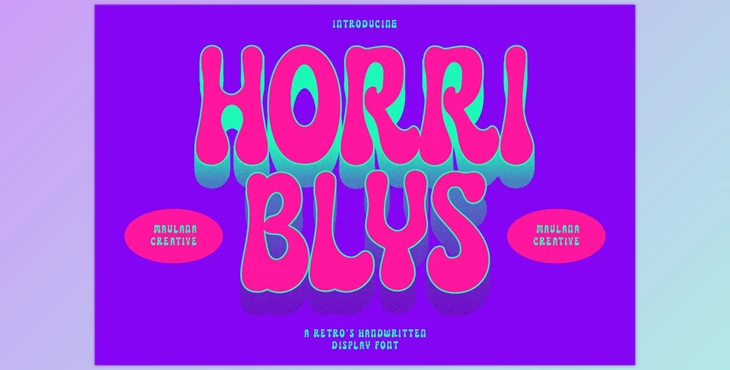
Horriblys Decorative Display Font:
Horriblys is a beautiful handwritten display font. With a bold, wavy stroke. the enjoyable character that has a hint of alternates and ligatures. For you to do a bit of artistic work. The font supports multilingual support for more than 100languages. The font is suitable for logos, social media as well as movie Titles, and Books Titles, as well as a brief text even lengthy texts and, is an excellent secondary text font with a serif or sans. Create stunning designs using Horriblys font.